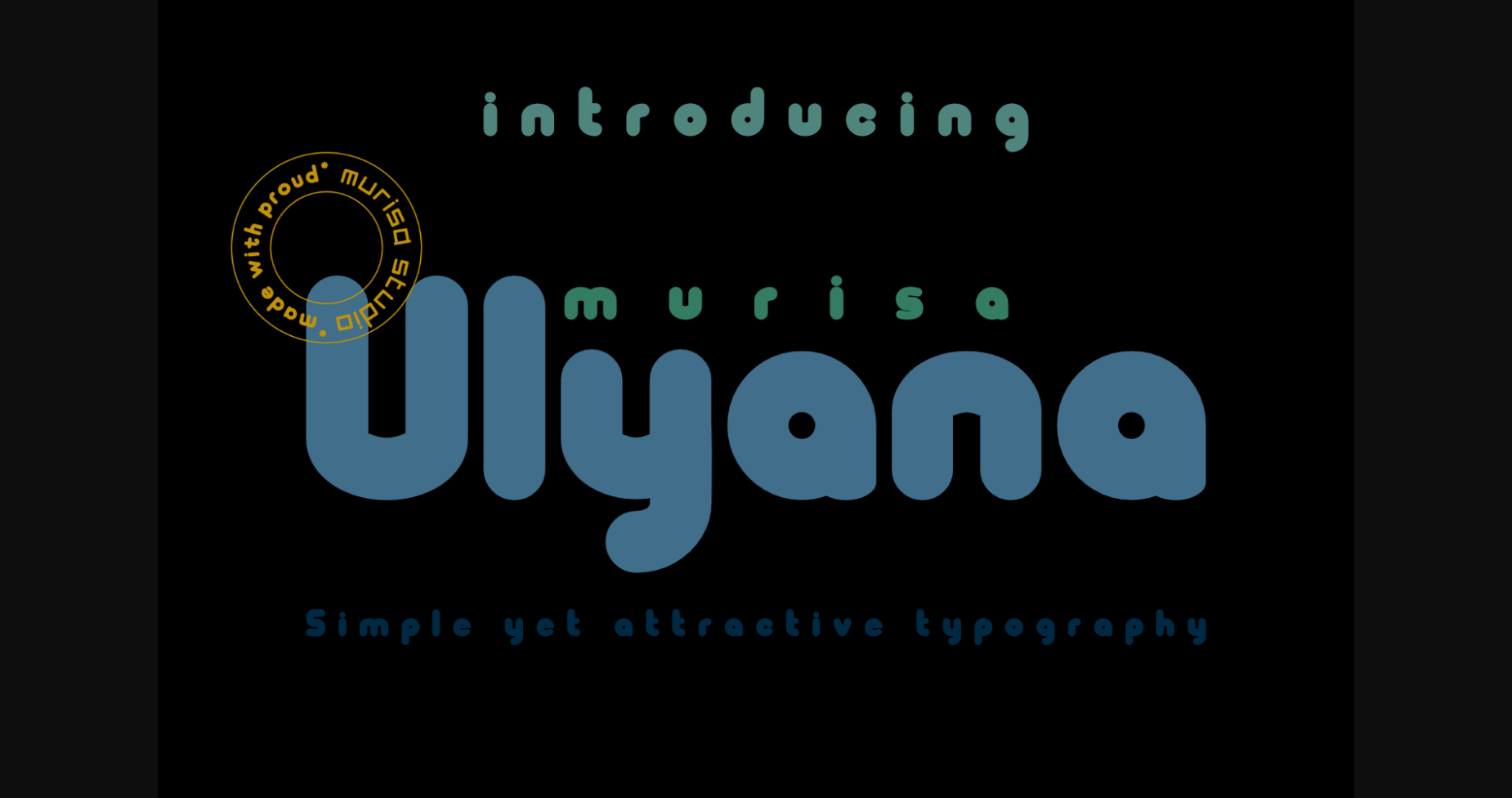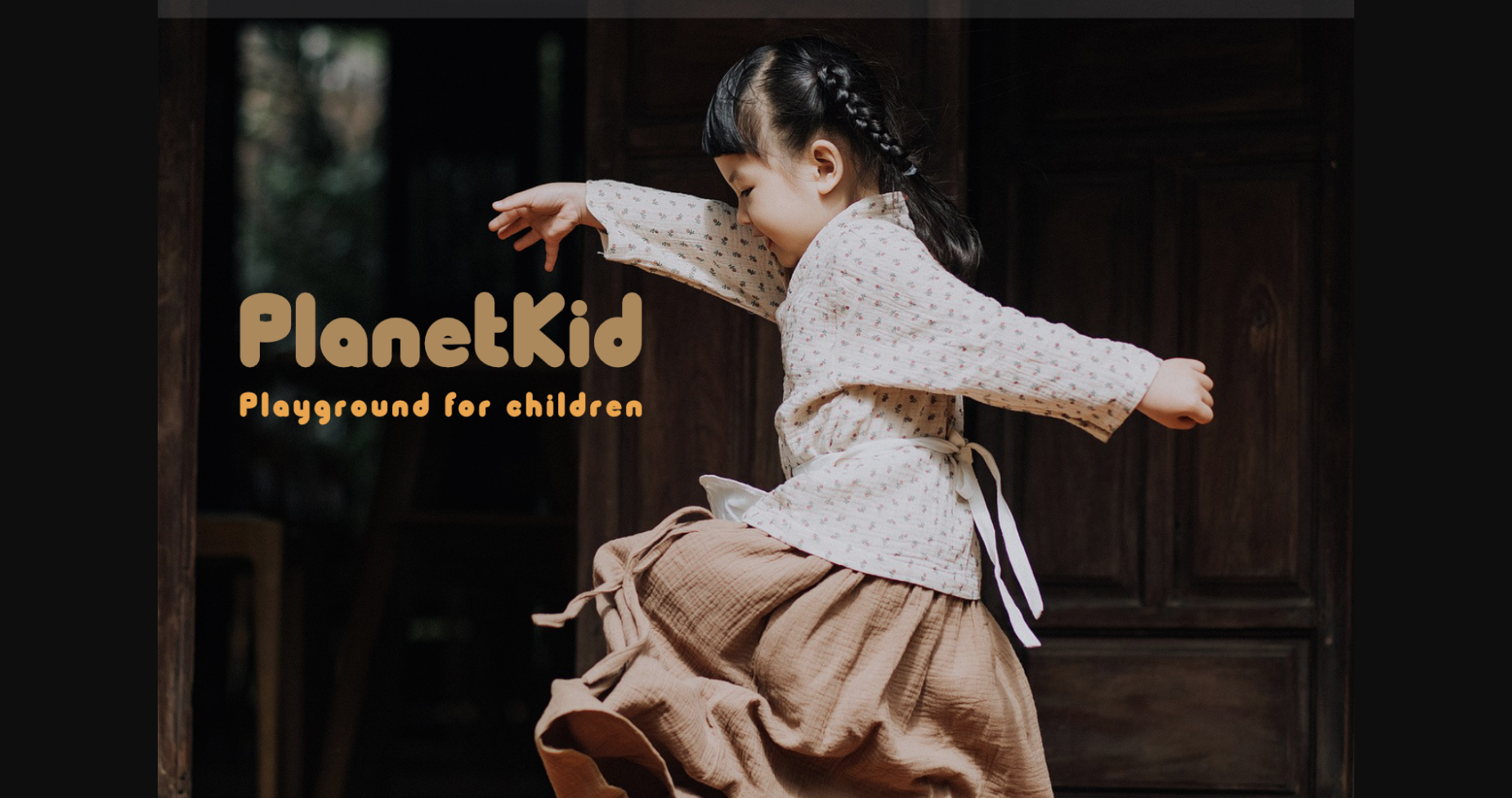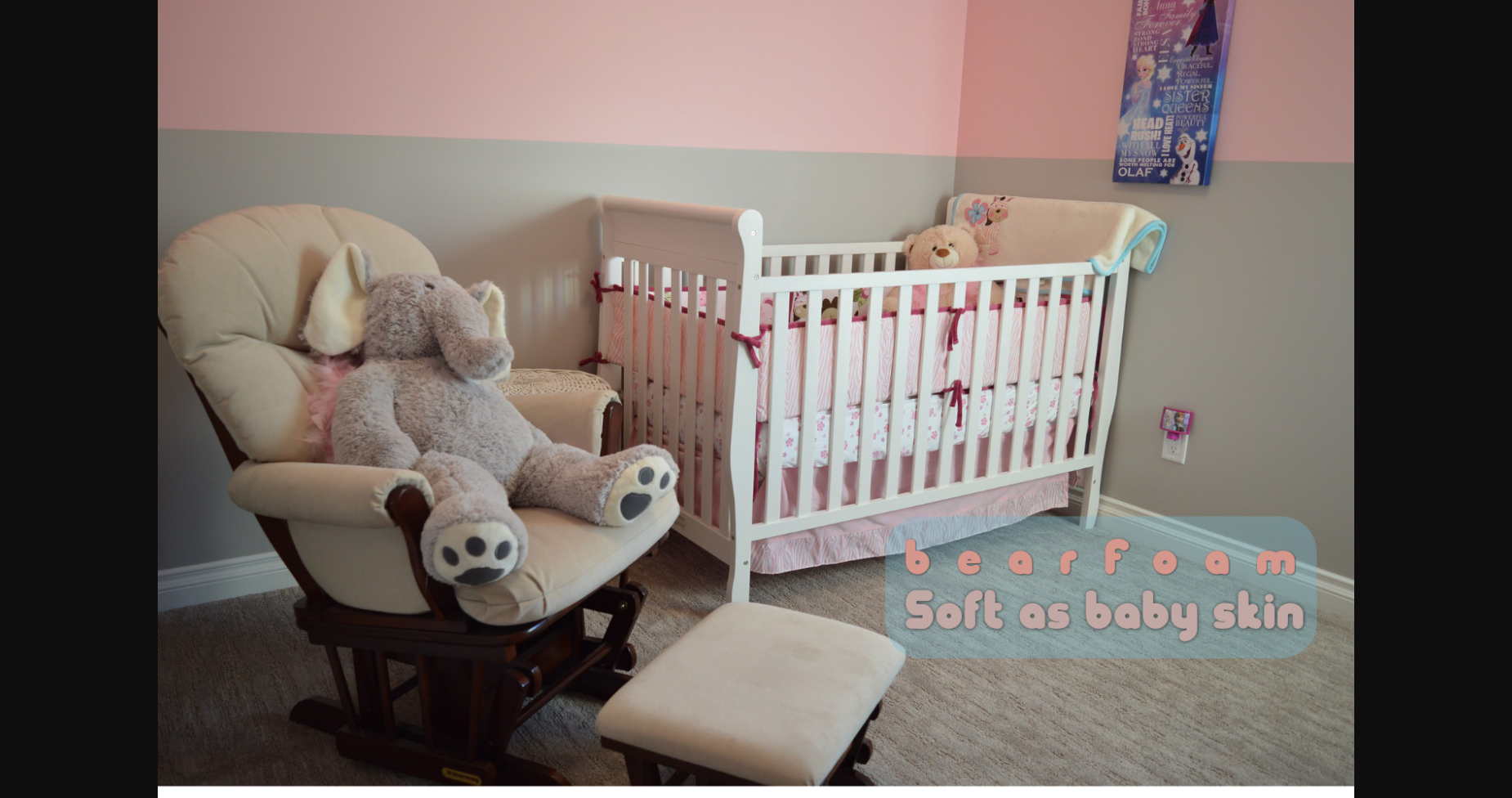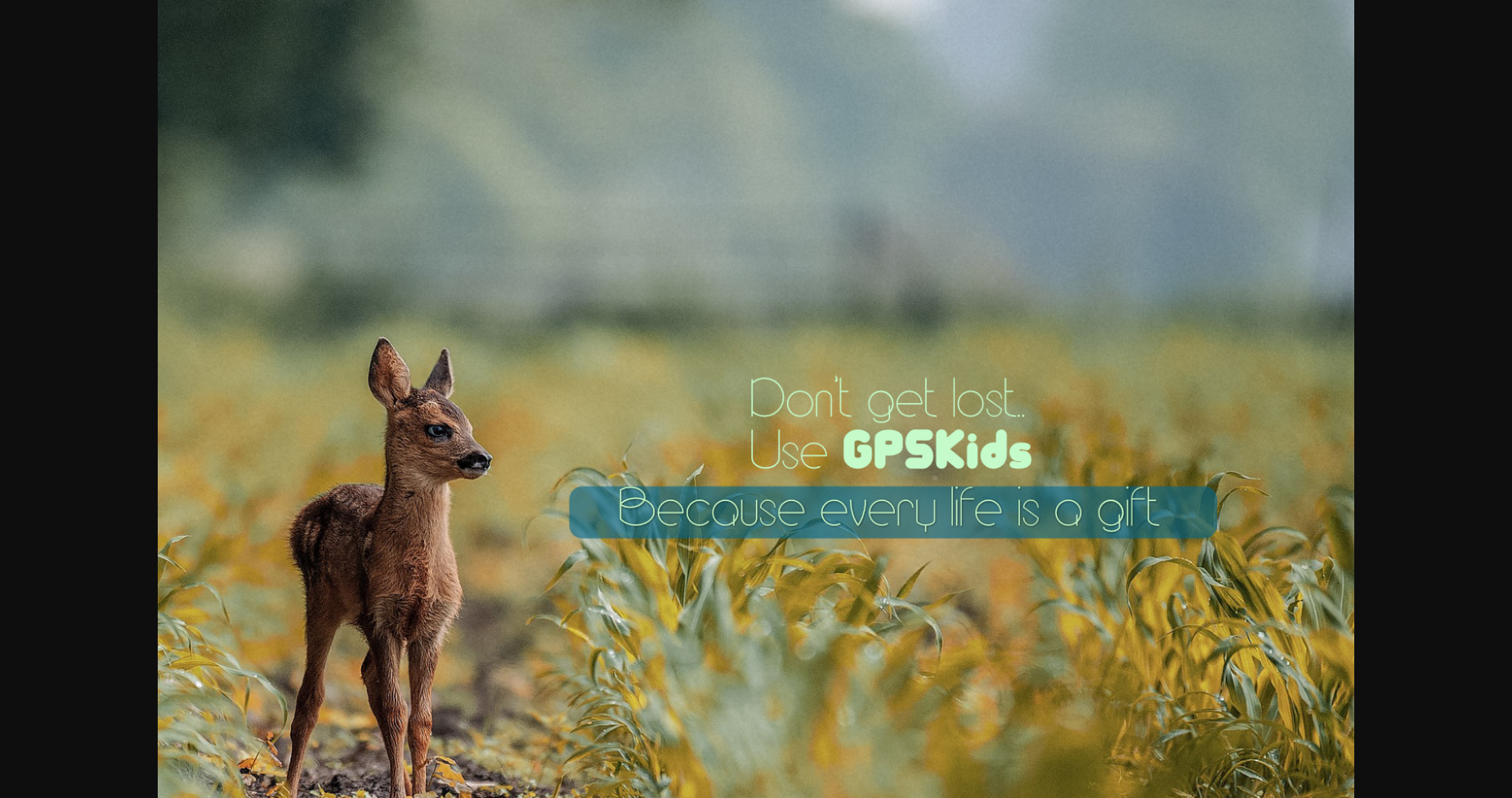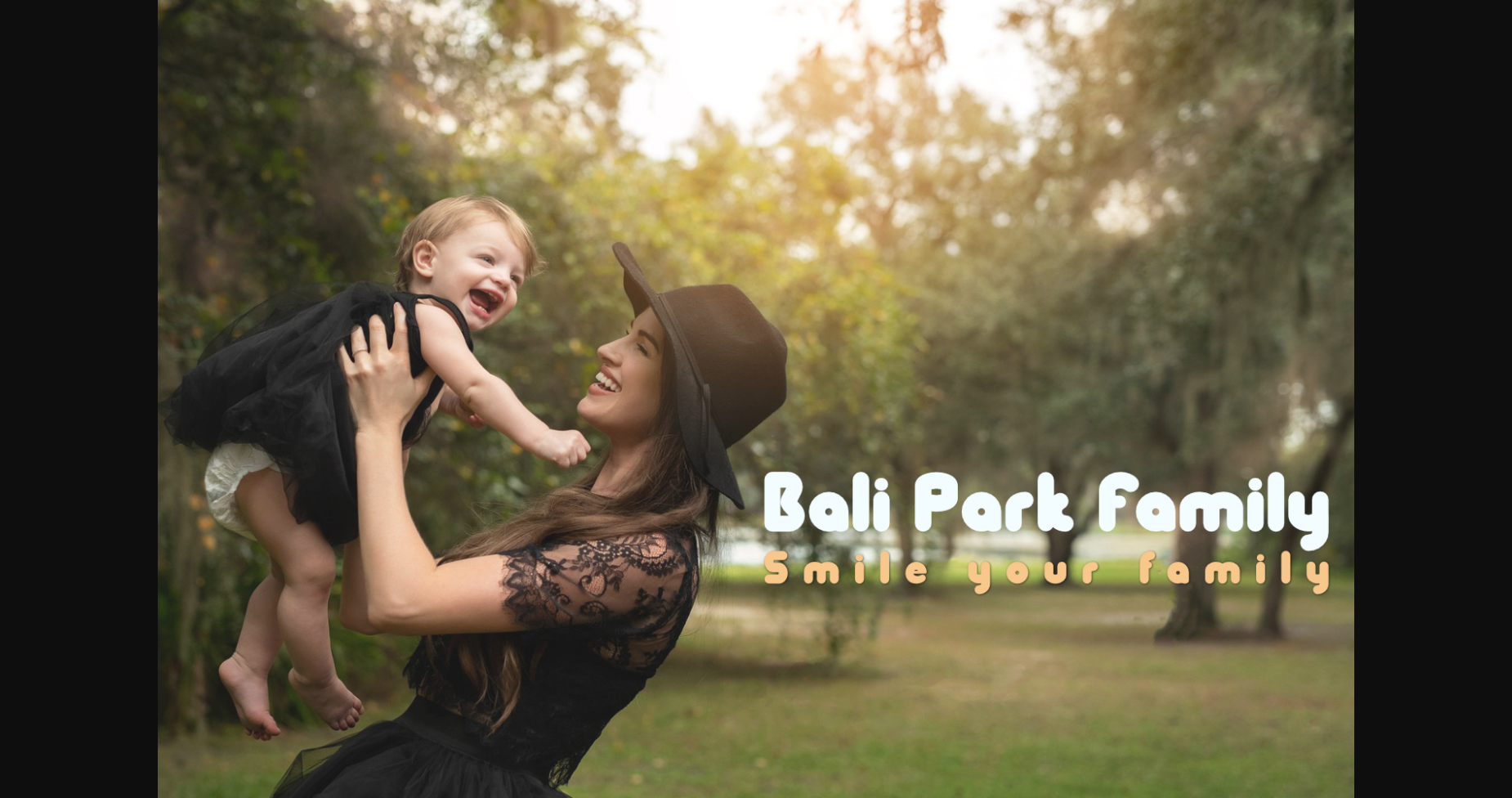
HomeSans Serif FontsMurisa Ulyana Font Sans Serif Fonts Murisa Ulyana Font FacebookXPinterestWhatsApp 1 of 7 ... Murisa Ulyana Font Poster 2... Murisa Ulyana Font Poster 3... Murisa Ulyana Font Poster 4... Murisa Ulyana Font Poster 5... Murisa Ulyana Font Poster 6... Murisa Ulyana Font Poster 7... About Murisa Ulyana Font Murisa Ulyana is a cute, eye-catching sans serif font. Its cheerful and bright personality will help you create lovely designs. DOWNLOAD NOW People also explored Buntan Font Simple Handmade Font Two White Coffee Mug Mockup with Viburnum Flowers Colaserla Font Crazy Rich Font Kitaline Font Menleader Font Super Marion Duo Font Mandala Wedding Font 312 0 TagsMurisa Ulyana Font Previous articleEnegma FontNext articleSence Font LEAVE A REPLY Cancel reply Comment: Please enter your comment! Name:* Please enter your name here Email:* You have entered an incorrect email address! Please enter your email address here Website: Save my name, email, and website in this browser for the next time I comment. Personal Use Free Yumail Personal Use Free Read more about this font Frozdotre Personal Use Free Read more about this font The Lima Personal Use Free Read more about this font No Virus Personal Use Free Read more about this font BLOG Free vs Paid Fonts: Why Investing in Premium Fonts Is Worth It Free vs Paid Fonts: Why Premium Fonts Are Worth It in 2025 The debate of free vs paid fonts continues in the design world. While... How to Install and Use Fonts on Windows, macOS, and Web Projects How to Cut Any Font on Cricut: Convert a Font to SVG (Free) The 10 Best Handwriting Fonts to Add Personality to Your Designs